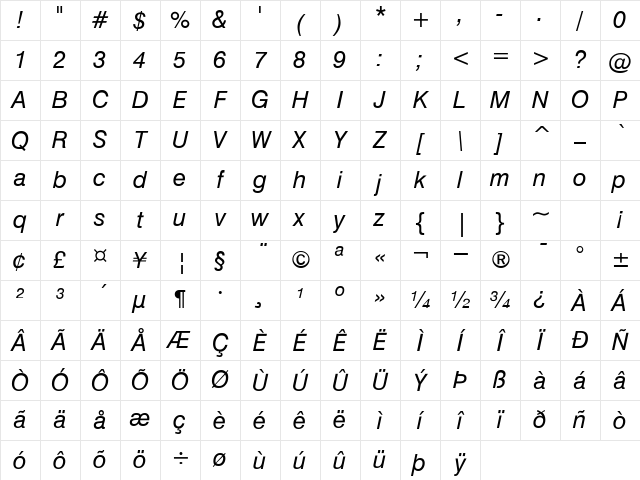
Hailsten is a composed and adaptable typeface that performs quietly and consistently across a wide range of design contexts. The slanted form adds forward momentum and visual energy.
Pro Tip: Use Hailsten for emphasis, pull quotes, and subheadings where its slanted energy can add rhythm to the layout.